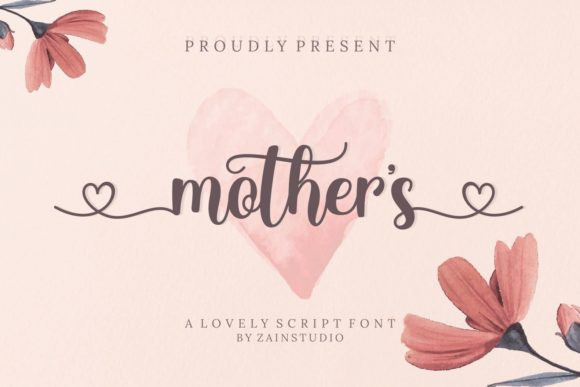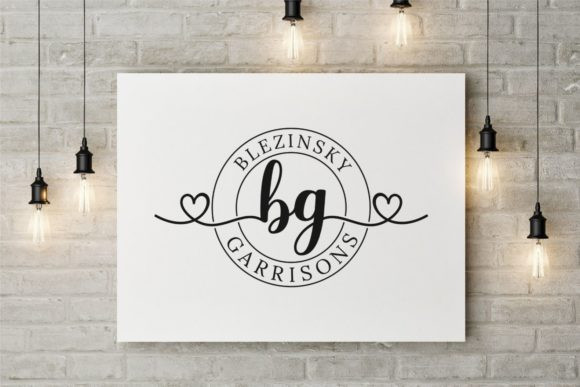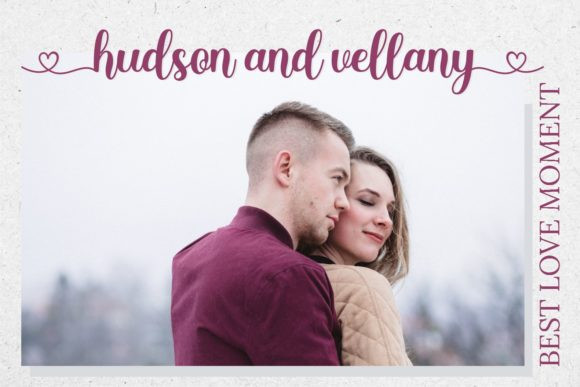
Mother’s Font
Mother’s is a gorgeous handwritten font. It features special heart-themed characters that will add a romantic touch to all your upcoming projects!
This font is PUA encoded which means you can access all of the cute glyphs and swashes with ease! It also features a wealth of special features including alternate glyphs and ligatures.